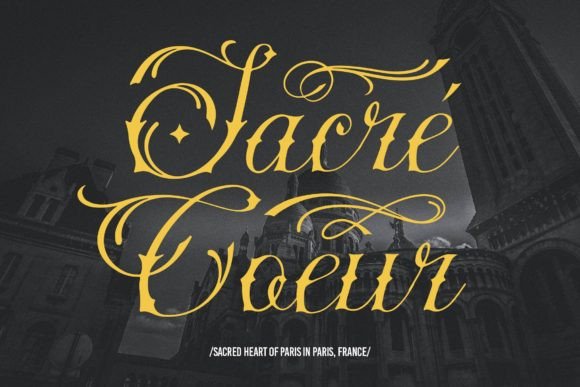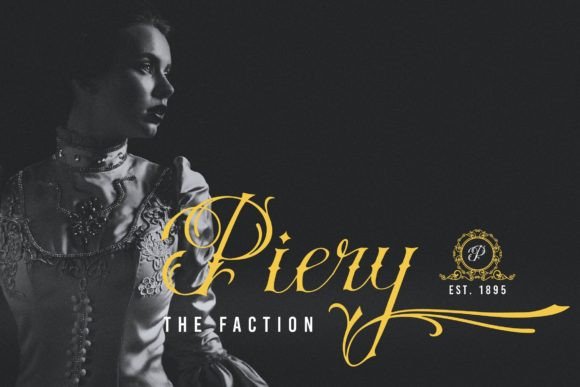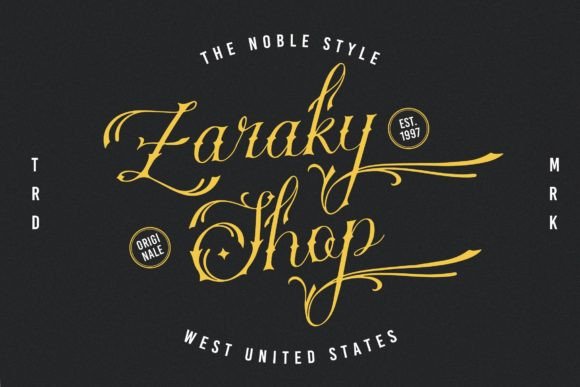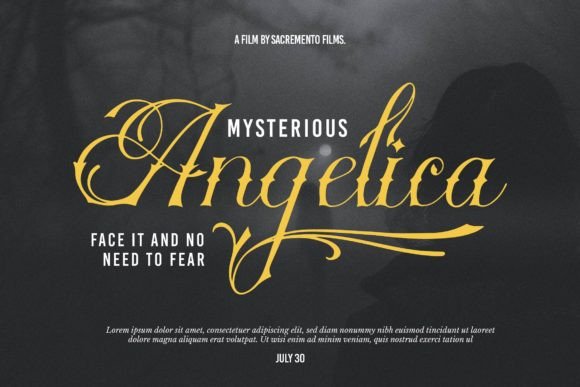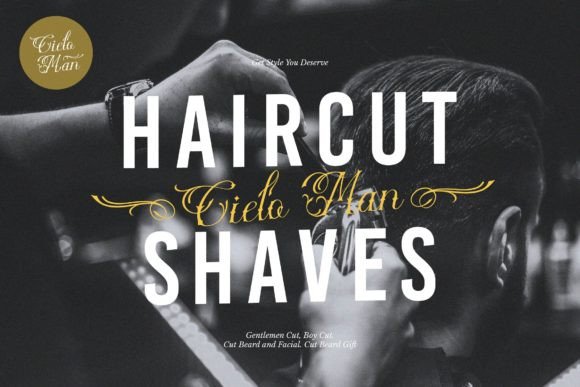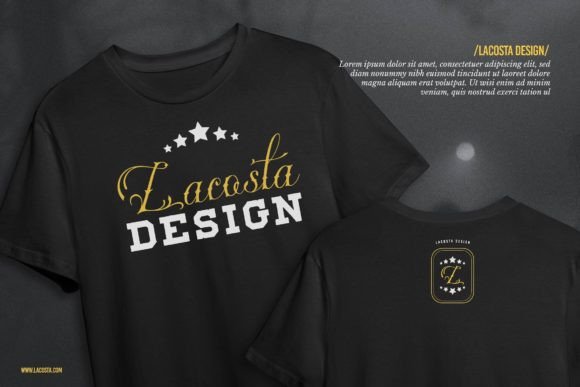
Introduction to Nefaryth Font
Nefaryth is a stylish tattoo script font that combines elegant curves with a bold, edgy feel.
Perfect for creating striking tattoos or adding a touch of unique flair to your designs .